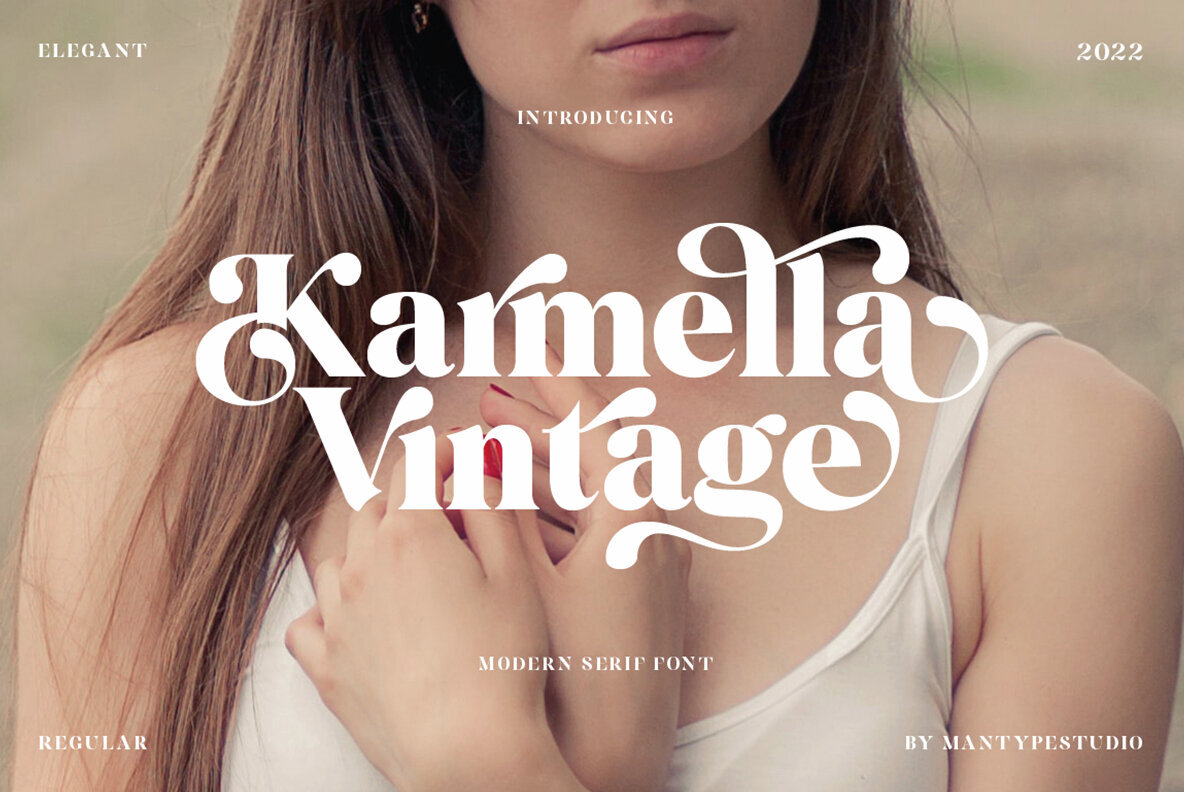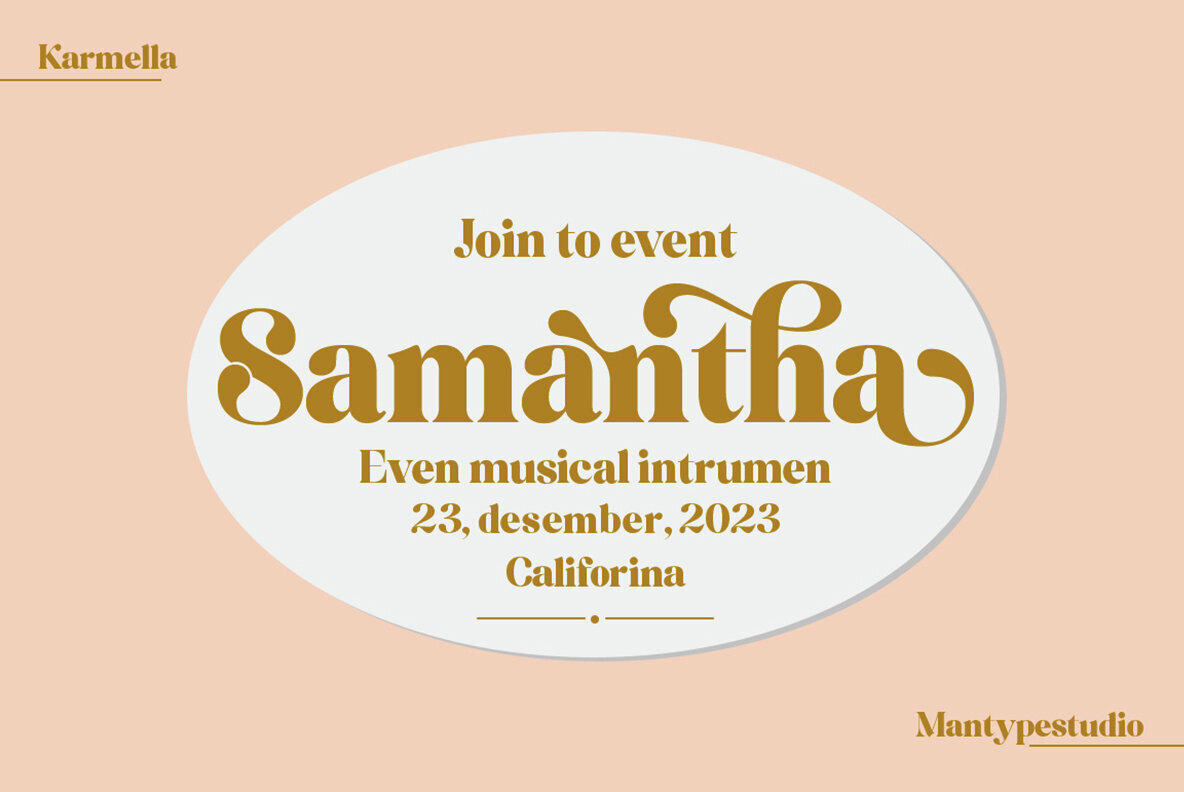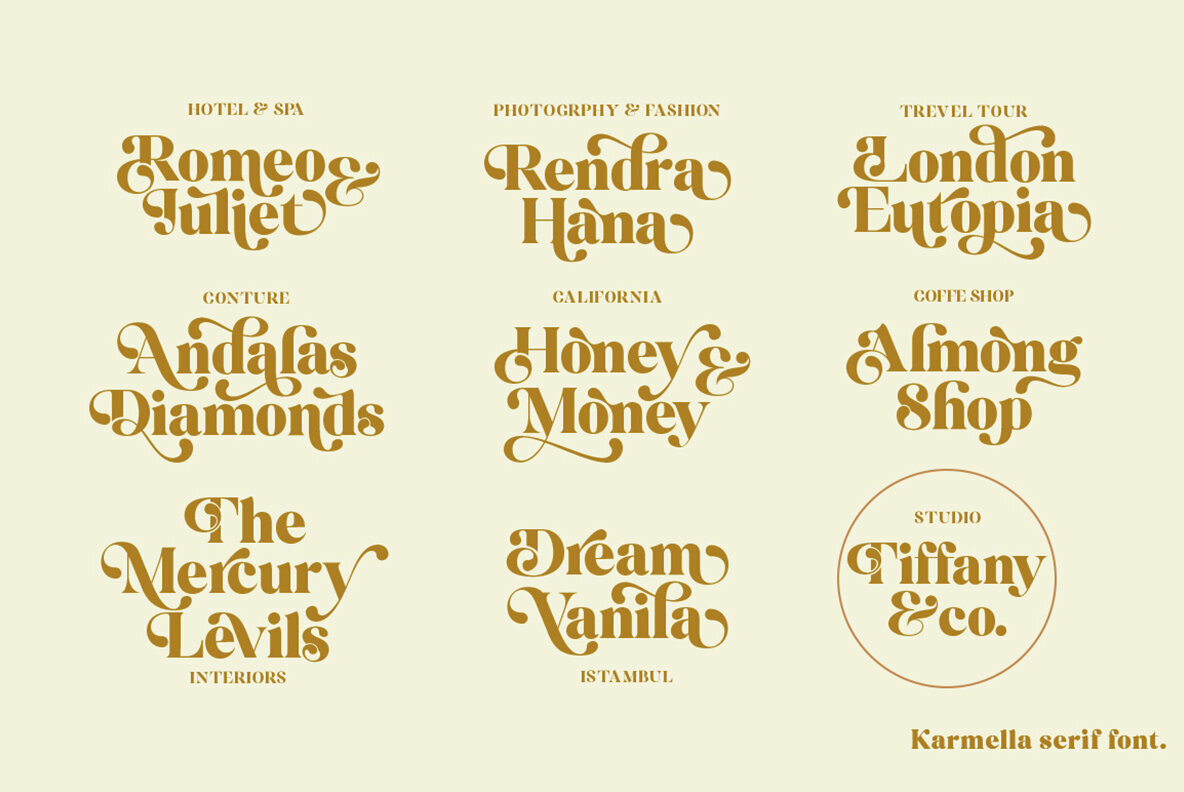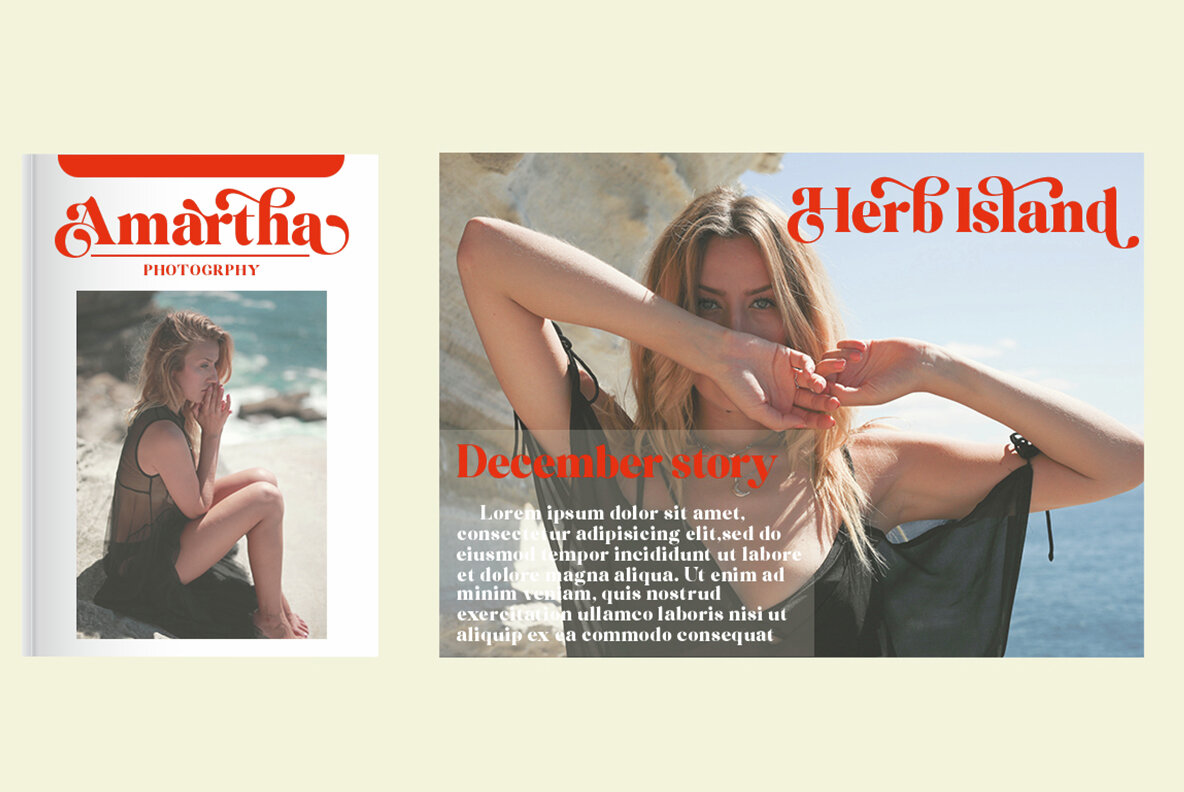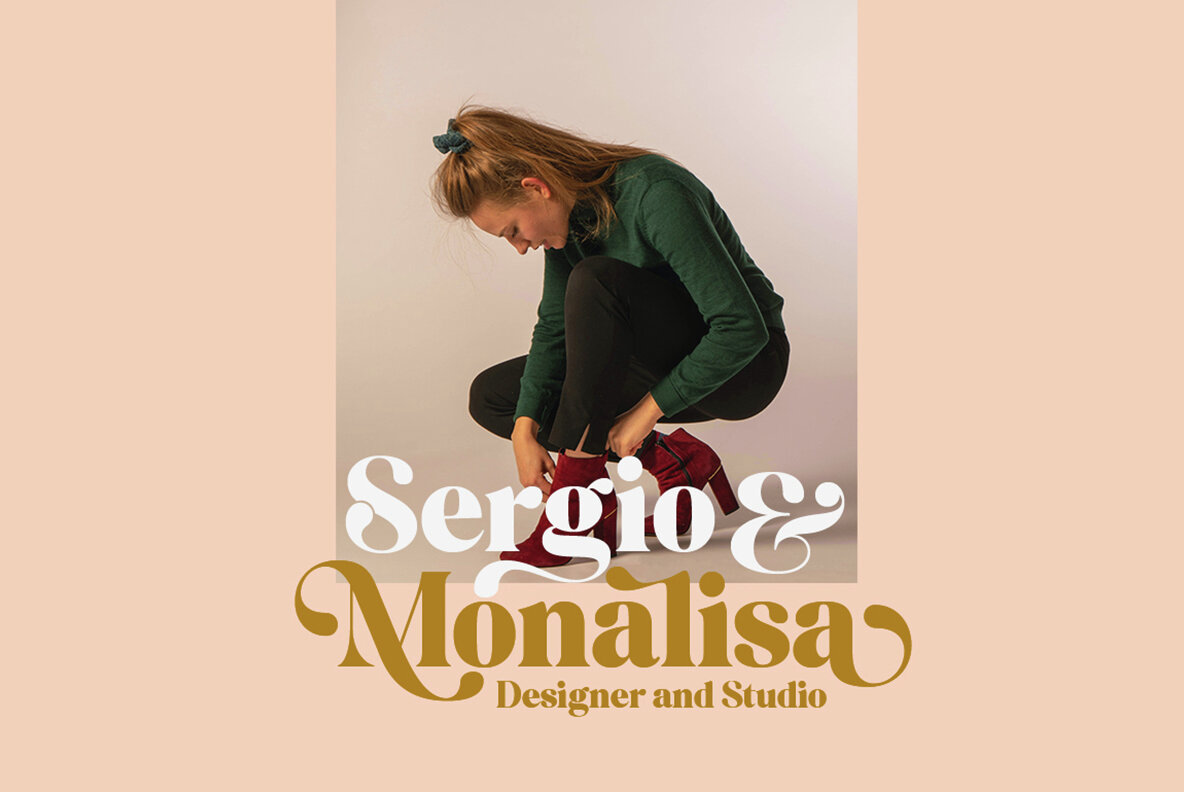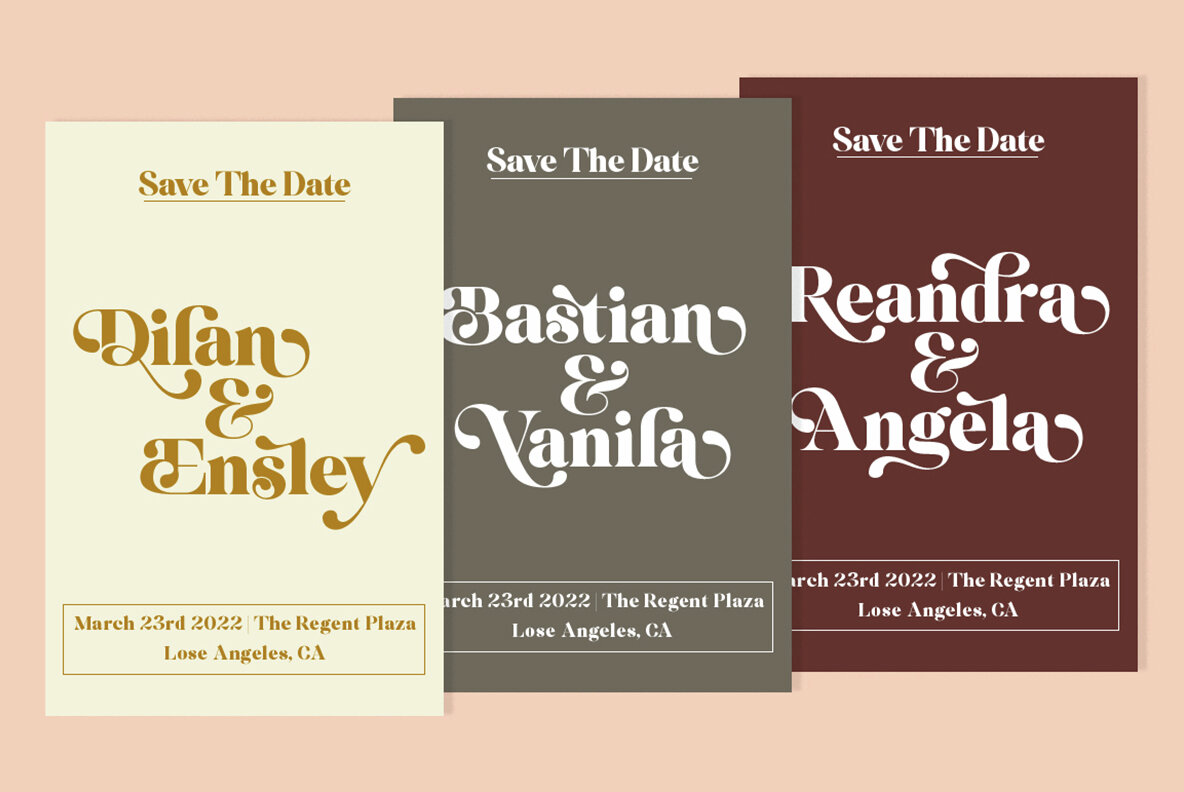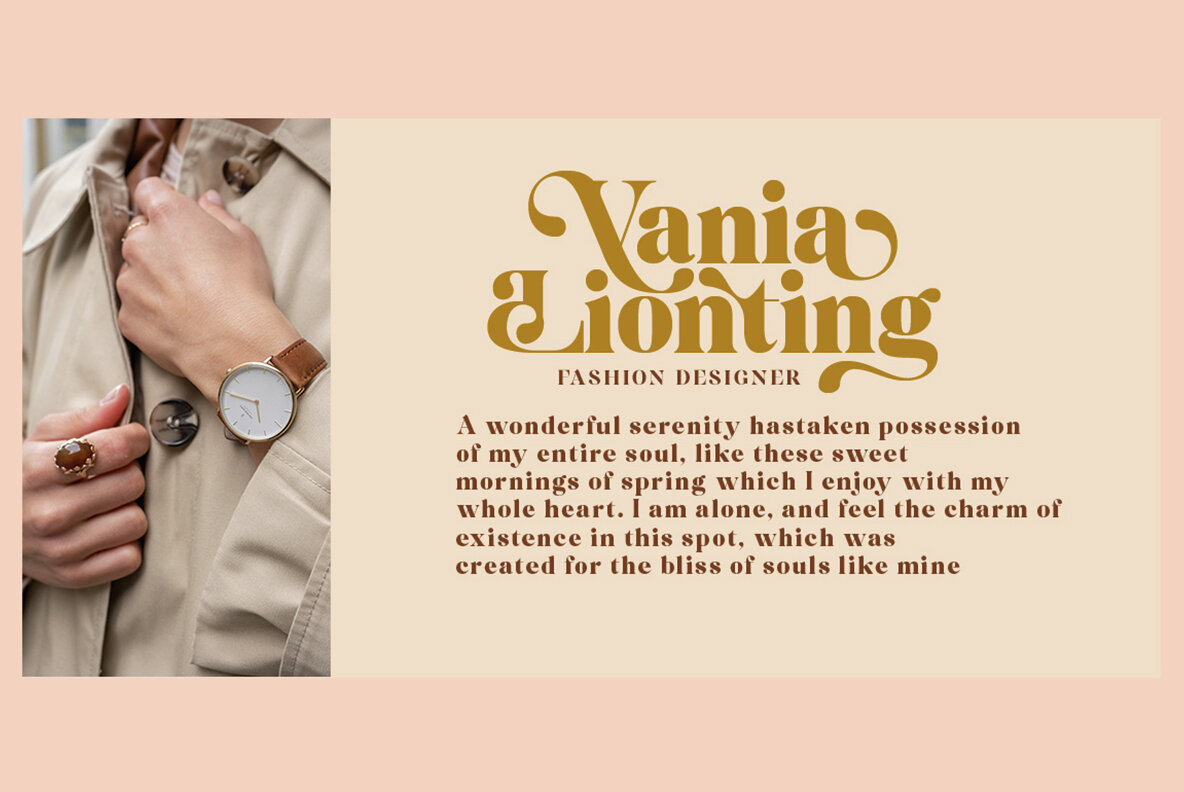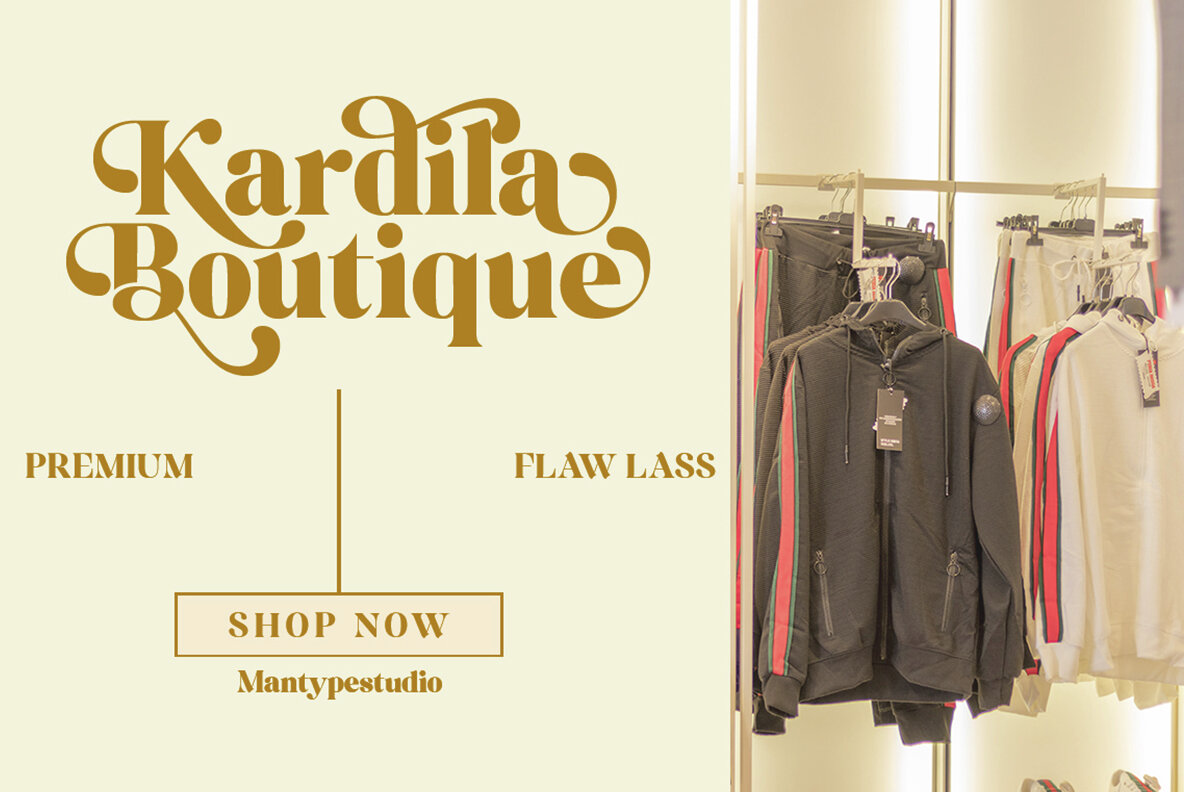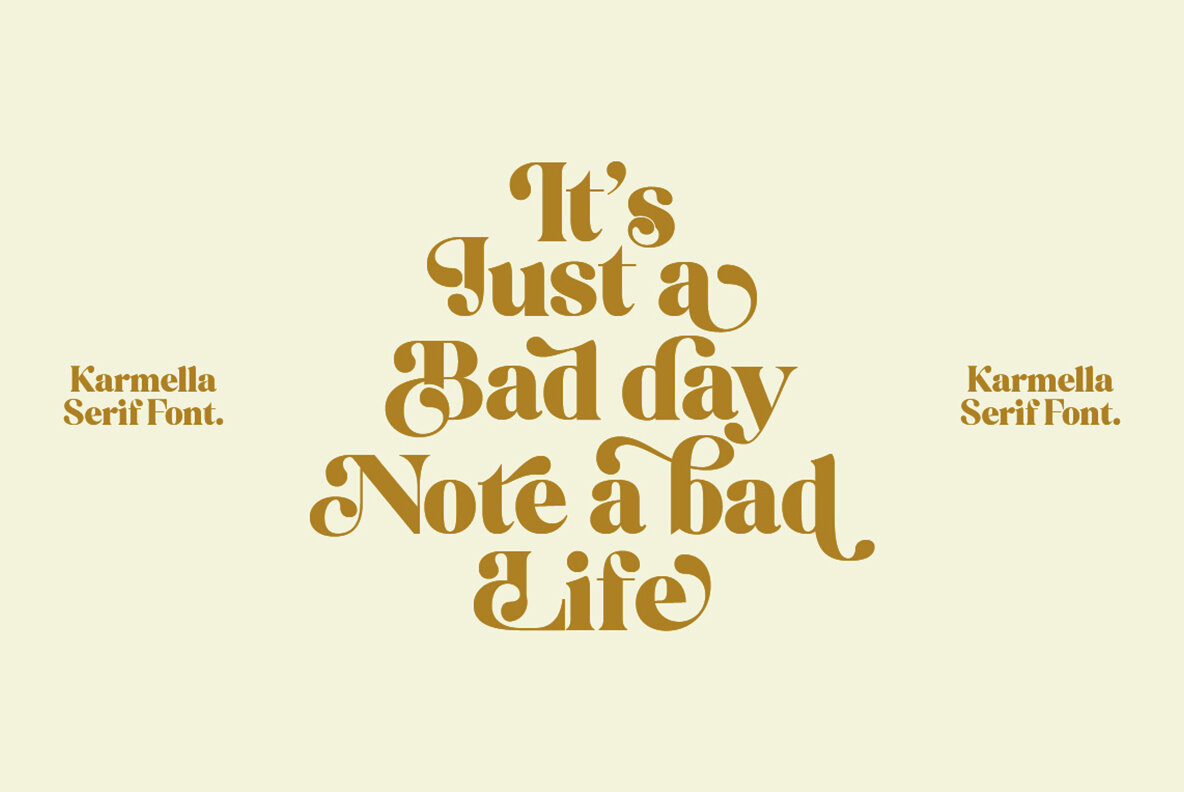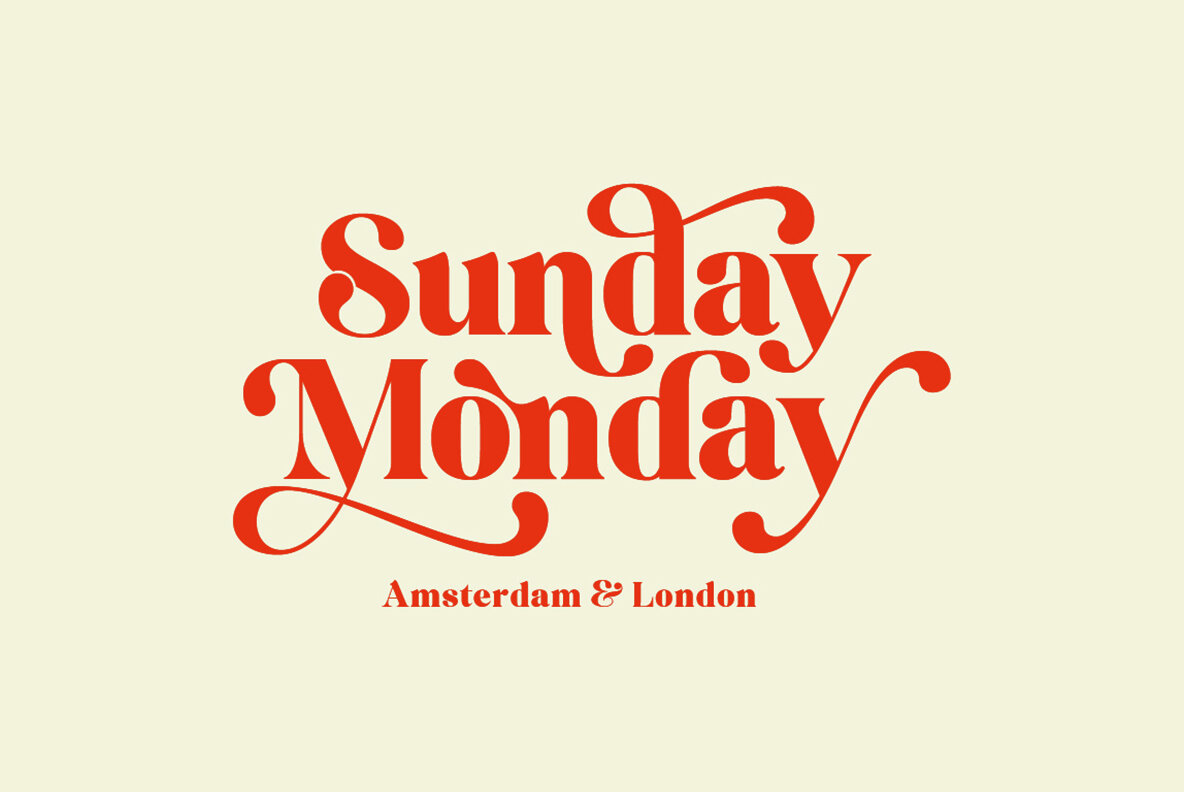
Karmella Font
Experience the perfect fusion of timeless elegance and modern design with Karmella, a serif font by Mantype Studio. Through delicately crafted curves and bold letterforms, this typeface delivers both grace and strength. Karmella is ideal for a range of design projects, from branding and editorials to logos, product packaging, wedding invitations, and fashionable social media graphics. Any project seeking a luxurious and sophisticated allure will find its match with Karmella. The vintage charm combined with contemporary flair makes Karmella stand out, offering a feminine, stylish, and refined touch that ensures your designs remain timeless. Its classic beauty seamlessly adapts to both print and digital media, providing you with flexibility and creativity. Allow Karmella to elevate your design works with its classic beauty and sophisticated appeal.Karmella Serif Font